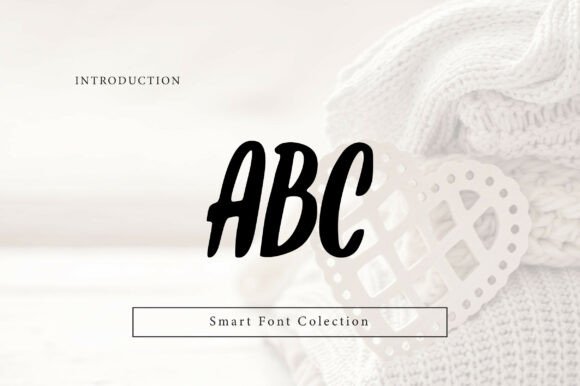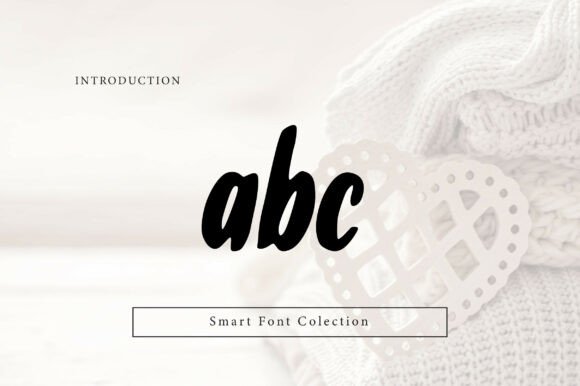
Unleashing the Power of Bold Calligraphy Font
You’re sitting at your desk, staring at a blank canvas, and suddenly, the perfect idea strikes. You envision a beautiful, hand-crafted design that exudes confidence and personality. The Bold Calligraphy Font is the perfect partner in crime, bringing a sense of permanence and elegance to your creative vision.
This stunning typeface is the perfect marriage of traditional penmanship and modern weight, featuring high-pressure downstrokes that give every word a sense of authority. The Bold Calligraphy Font is not just a pretty face – it’s a versatile tool for designers who need a display font that’s both eye-catching and professional. Whether you’re designing food packaging, restaurant logos, or social media quotes, this font is sure to make a lasting impression.
- Unique Characteristics: Distinctive, elegant, and highly legible calligraphy style, perfect for adding a touch of sophistication to wedding invitations, certificates, and other formal documents.
Designer Review: Bold Calligraphy Font
I’ve had the chance to play around with the Bold Calligraphy Font, and here are my honest thoughts.
- The font has a beautiful, high-quality aesthetic that’s perfect for adding a touch of elegance to designs.
- The bold lines and decorative flourishes make it great for headings and titles.
- The font is highly customizable, allowing users to adjust the size, color, and spacing to suit their design needs.
- The font can be quite overwhelming if used in large blocks of text. It’s best used sparingly to add visual interest.
- The bold lines can sometimes clash with other design elements, so it’s essential to use it thoughtfully.
- The font doesn’t come with a wide range of languages supported, which can be a limitation for international designs.
Overall, the Bold Calligraphy Font is a great addition to any designer’s toolkit. While it has some limitations, its unique aesthetic and high level of customizability make it a valuable resource. With careful use, it can add a touch of sophistication and elegance to any design project.
Tips for Getting the Most Out of the Bold Calligraphy Font
Use the Bold Calligraphy Font to add a touch of elegance and sophistication to your designs. Here are some tips to get the most out of it:
- Pair the Bold Calligraphy Font with a clean and simple background to let the text take center stage.
- Use the Bold Calligraphy Font in combination with other elegant fonts to create a unique and stylish look.
- Experiment with different font sizes and colors to create visual interest and emphasis.